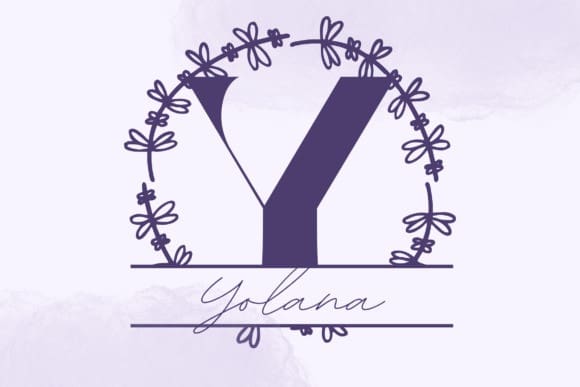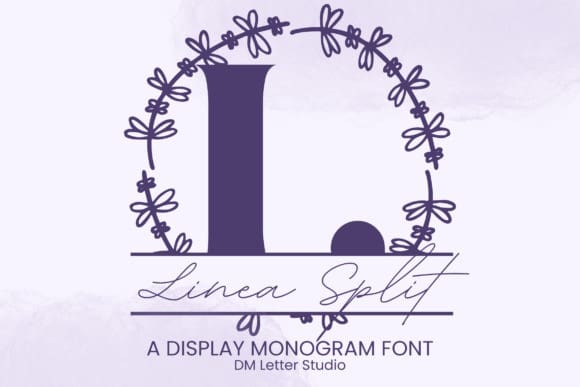
Linea Split Monogram Font
Linea Split Monogram Font is a modern, minimal serif monogram font created for effortless personalization. Each uppercase letter includes a precise horizontal split that opens a clear space for names, initials, or dates. The structure is calm and minimal, so your custom text sits neatly inside without visual clutter. Use it for weddings, boutique branding, packaging, engraving, vinyl decals, and Cricut crafts where a crisp, contemporary look matters.
Built on the original Linea Monogram’s balanced geometry, this split version keeps the same steady strokes, open counters, and refined serifs. The split line is engineered for consistency across the alphabet, which makes alignment and spacing straightforward in design apps and cutting software. On small tags, it stays legible. On signage and gift boxes, it feels architectural and confident.
Whether you are building a wedding crest, a set of product labels, or a personalized gift line, Linea Split Monogram gives you clarity and control. The letters are measured and stable, the split is generous but unobtrusive, and the overall rhythm feels composed on screen and in print. Pair it with a delicate script for romance or a neutral sans for a gallery-clean system.
If you want a split monogram that is minimal, reliable, and easy to customize, Linea Split Monogram delivers a polished result with very little tweaking.